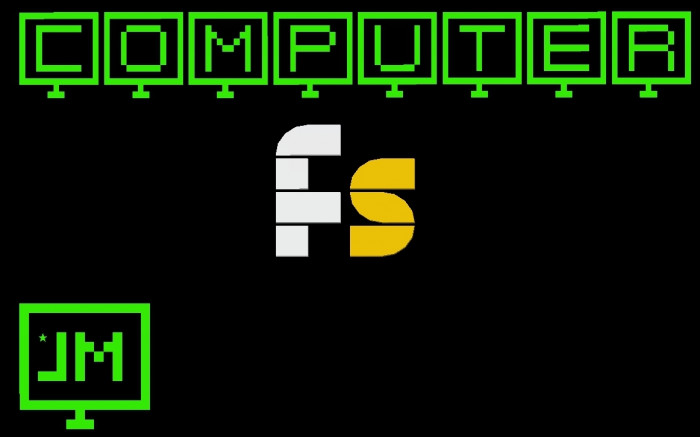
• I take a idea of the font,over the Computers,is a pixel
C O M P U T E R  I M F O R M A T I O N
is that a huge letter or a tiny monitor
Is a Tiny Monitor